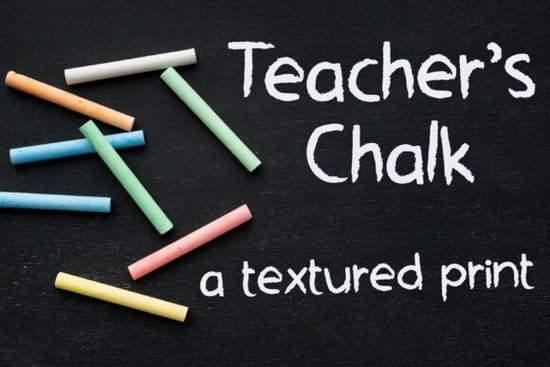
If you've ever tried to recreate the vintage chalkboard look digitally, you know most fonts miss the mark they look too clean. Teacher's Chalk Font solves that by bringing real, dusty chalk texture into your workflow. As a hand-printed sans-serif with grainy edges and powdery finishes, it captures the warmth of a classroom blackboard or a cozy café menu without needing any fancy Photoshop brushes.
How can I use a chalk font for my print-on-demand items?
Print-on-demand sellers love Teacher's Chalk because the textured style hides small printing imperfections and works on everything from mugs to tote bags. The font's rough edges feel authentic rather than broken, so it shines on:
- Kitchen towels and aprons with bakery or farmhouse phrases
- Stationery sets for teachers, tutors, and homeschoolers
- Children's books and educational posters where hand-drawn warmth matters
- Social media headers for small businesses that want a personal, handmade vibe
Because the letters keep a clear, friendly shape even at smaller sizes, you can use it for product labels without worrying about legibility. Pair it with a clean script like finytaels for quote designs or combine it with honesty for a charming, handwritten contrast on greeting cards.
What projects work best with this textured typeface?
This isn’t a font for formal reports it’s meant for projects where a rustic, approachable feel is the goal. Independent bakers use it for jar labels and chalkboard signs because the grain looks naturally dusty, not digitally applied. Boutique bistros love it for menu boards and daily specials. And for classroom creators, Teacher's Chalk Font is ideal for:
- Reward charts and classroom rule posters
- Name tags, locker labels, and homework folders
- Bulletin board headers that look handwritten but stay consistent
- Custom digital planners and sticker sets for teachers
The font also works well in layered designs place a solid rectangle behind it and you’ll get a realistic chalk-on-board effect instantly. For a softer, bedtime-storybook look, try pairing it with bedtime in titles.
Which other fonts pair well with Teacher's Chalk?
Because this font is a display face with a strong personality, you’ll want simpler companion fonts for body text or secondary lines. Scripts are a natural match:
- Hamster adds a playful, bouncy contrast that works for kids’ materials.
- Jamytta brings a flowing, modern cursive that balances the chalky texture nicely.
You can also mix it with a neat sans-serif for headers and use Teacher's Chalk only for featured words. Keep spacing generous the rough edges need breathing room to stay readable.
Practical checklist for using Teacher's Chalk Font
- Test the grain. If you’re printing on fabric or paper, run a sample first the texture shows best on matte surfaces.
- Limit the all-caps. While the font includes uppercase letters, using them for long strings can feel heavy. Stick to lowercase or title case for warmth.
- Pair with one soft color. White, cream, or soft pastels over a dark background reinforce the chalkboard illusion.
- Don’t over-decorate. The font’s own texture is enough skip heavy drop shadows or strokes that might flatten the chalk effect.
- Check legibility at small sizes. The grain stays readable down to about 14pt, but for body copy you’ll want a cleaner companion font.
If you’ve been searching for a chalk font that actually looks like chalk not a distressed stock texture Teacher's Chalk Font is a solid, time-saving choice for your next handmade or classroom project.